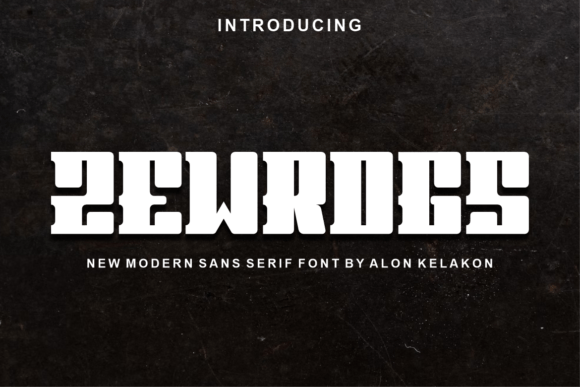
Step into the world of elegance and sophistication with Zewrogs Font, a display font that's anything but ordinary. This modern masterpiece is a typographic gem, meticulously crafted to elevate your designs to new heights. With its clean lines, bold curves, and captivating swashes, Zewrogs Font is the perfect choice for those seeking a font that exudes both style and substance.
Immerse yourself in a world of creative possibilities with Zewrogs Font. This display font is a versatile chameleon, effortlessly adapting to a myriad of design projects. Whether you're crafting logos, branding materials, website designs, or eye-catching social media graphics, Zewrogs Font will transform your ideas into stunning visual masterpieces. Its versatility knows no bounds, making it the ideal font for designers, marketers, and creative professionals alike.
Zewrogs Font is more than just a collection of letters; it's an artistic expression that speaks to the heart. Its elegant curves and sharp angles create a visual symphony that captivates the eye and stirs the emotions. With Zewrogs Font, your designs will resonate with your audience on a deeper level, leaving a lasting impression that they won't soon forget.
Unleash your creativity and let Zewrogs Font take you on a journey of typographic exploration. Discover a world where fonts are not just symbols on a page but powerful tools that evoke emotions, convey messages, and create lasting connections. Zewrogs Font is the key to unlocking your creative potential and transforming your designs into works of art.